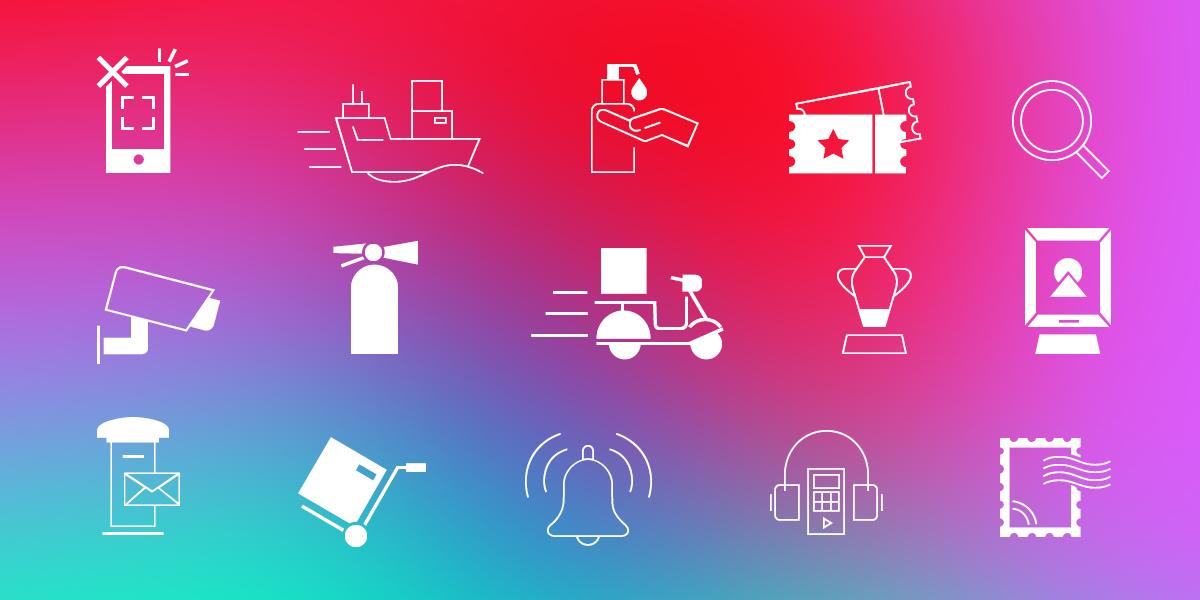
This Typeface of the Month: Postea, is a geometric sans serif typeface by TypeTogether. The story of Postea starts with Veronika Burian, Munich-based type designer and co-founder of TypeTogether type foundry, and her first encounter with a 1920s post office building in the architectural style of Bauhaus.
“The clean, simple, and slightly quirky Deutsche Post signage lettering caught my eye, with its longish extenders and varied letter widths, especially the bottom-heavy ‘s’,” says Veronika Burian. “I had been thinking about the challenge of designing a geometric sans for a while, and when I saw that ‘s’ I knew this was the inspiration I was looking for.”
Postea is a rather small type family, but smaller, in this case, does not mean either simpler or less accomplished. The challenge is represented in the typographic goal of the new typeface: Postea is meant to have outstanding performance in a wide range of situations from branding, indoor signage, and posters, to magazines and books on photography and architecture. In practice, this creates a couple scenarios that demand different levels of volume and tone with which the fonts must speak to the reader.
Postea’s 14 static styles, or two variable fonts, feature a Latin character set with support for over 140 languages and plenty of typographic goodies. Inspiration for Postea’s icons comes from geometry, art deco, and the use of specific icons related to museums and art. One of the most complex goals was to create functional iconography that is both recognizable and consistent with the skeletal structure of the font family. As with the character designs, simplicity prevails, which ensures compatibility with all the glyphs that make up the family.
Typeface of the Month: Postea
Foundry: TypeTogether
Designers: Veronika Burian, José Scaglione
Weights: Regular & Italic, Semibold & Semibold Italic, Bold & Bold Italic, Extrabold & Extrabold Italic, Hairline & Hairline Italic, Thin & Thin Italic, Light & Light Italic + Variable & Variable Italic